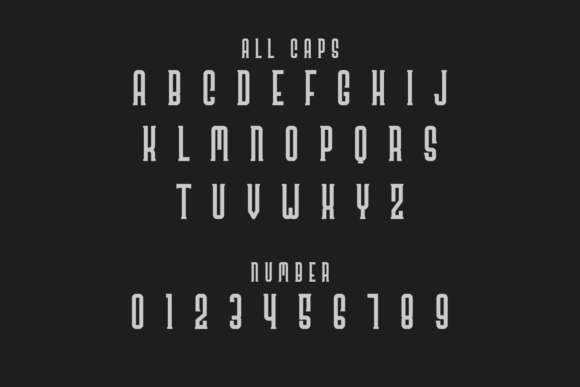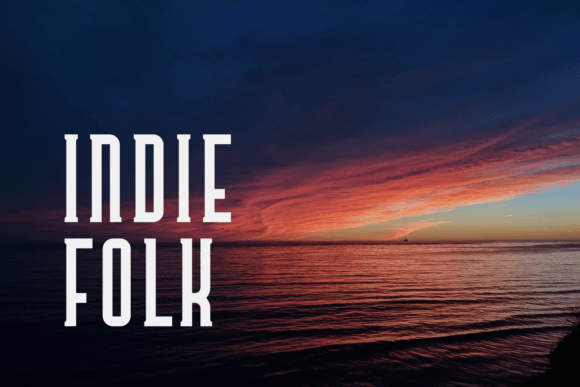
Introduction to Hyundra Font
Hyundra is a cool and unique serif font.
Key Features of Hyundra Font
Why Choose Hyundra Font?
Hyundra Font offers exceptional quality and versatility, making it a valuable addition to your design toolkit. Whether you’re creating for personal projects or commercial use, Hyundra Font delivers professional results.